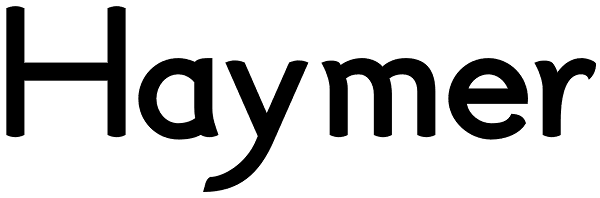
Haymer
Haymer stands at the apogee of legibility and clarity. Its design embodies symmetry, even stroke widths and a subtle rounded quality to give an instinctive appeal to the reader and to the designer. Haymer is modern yet characterful and is ideal for...